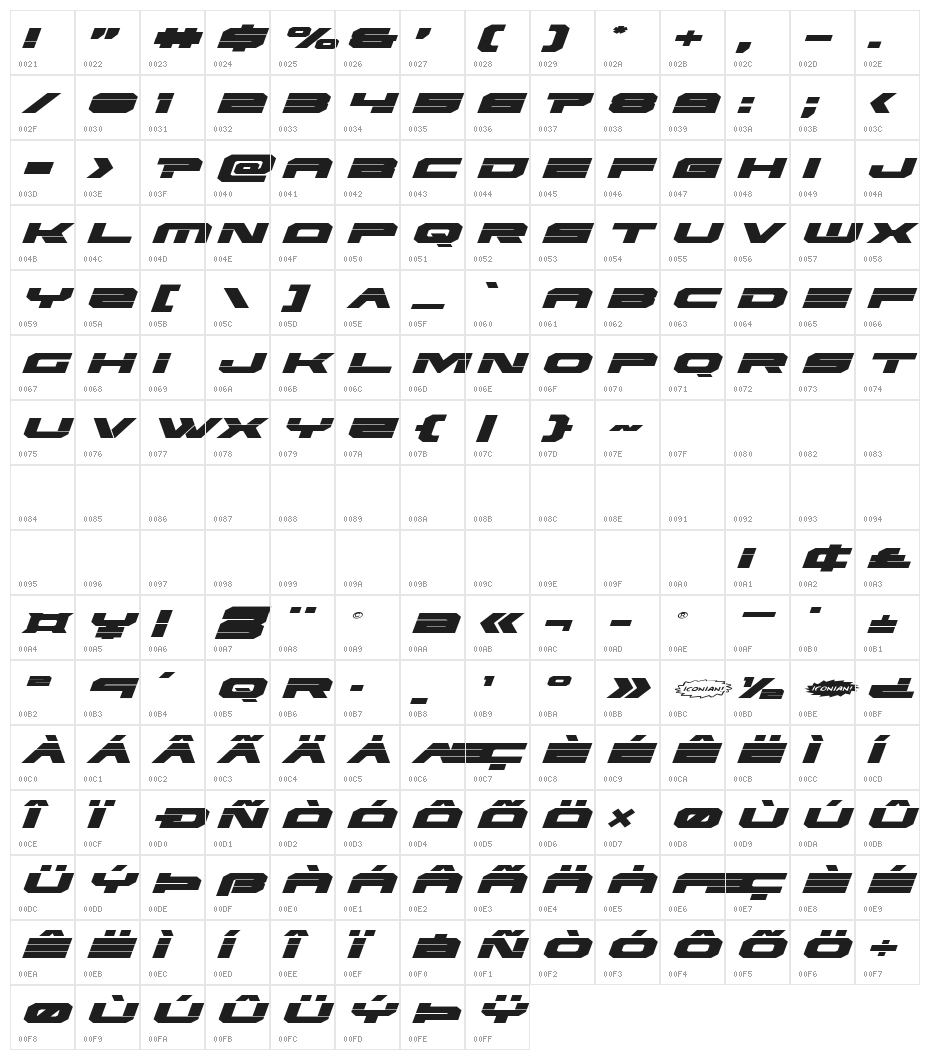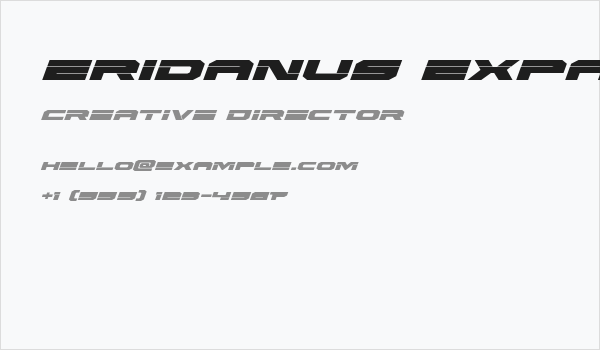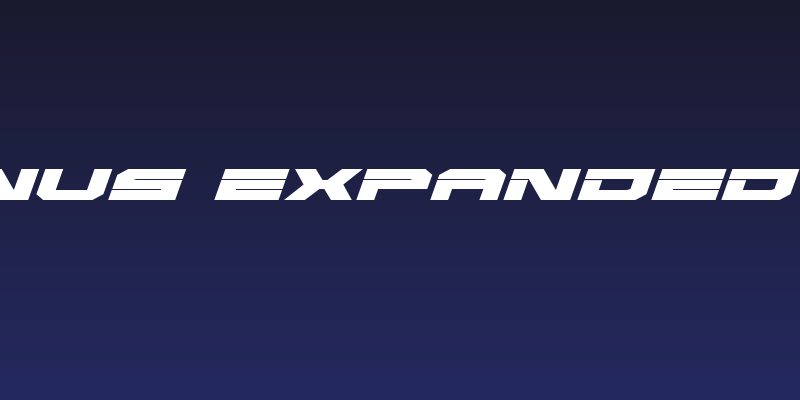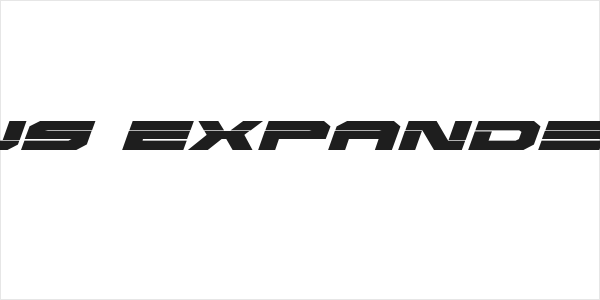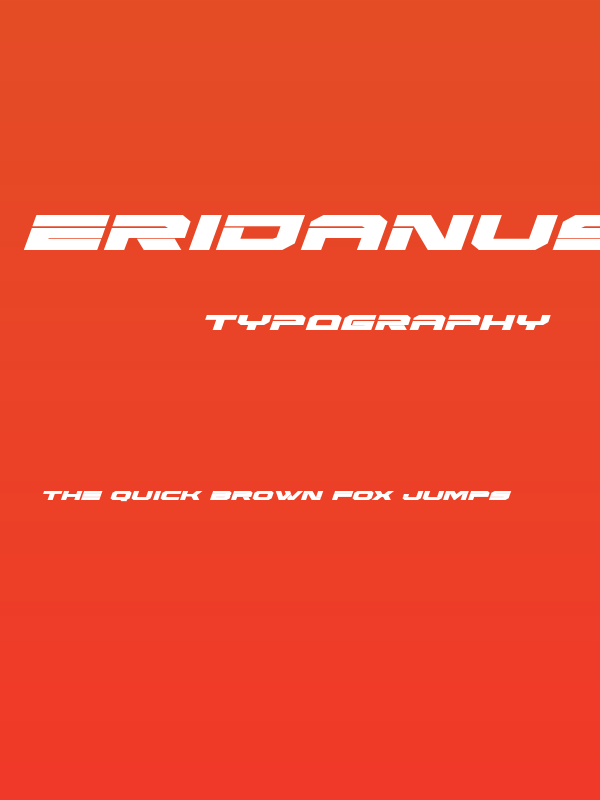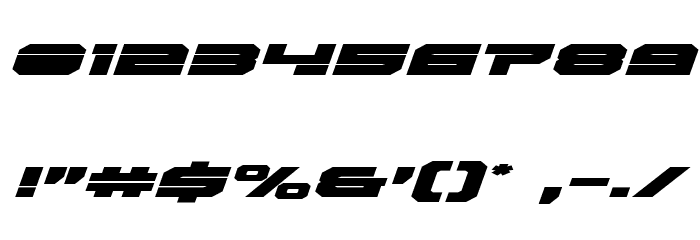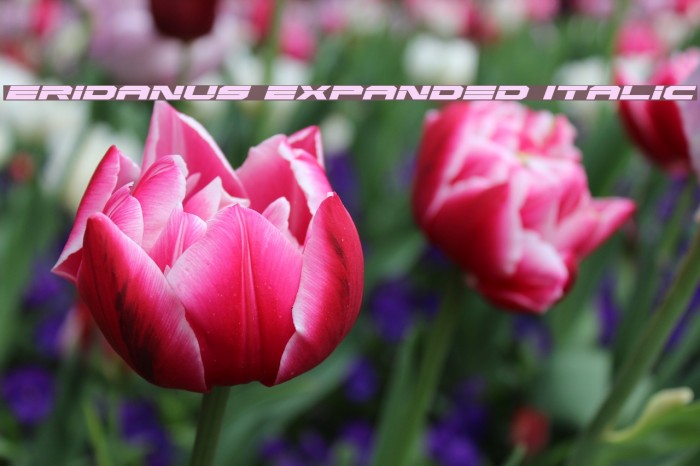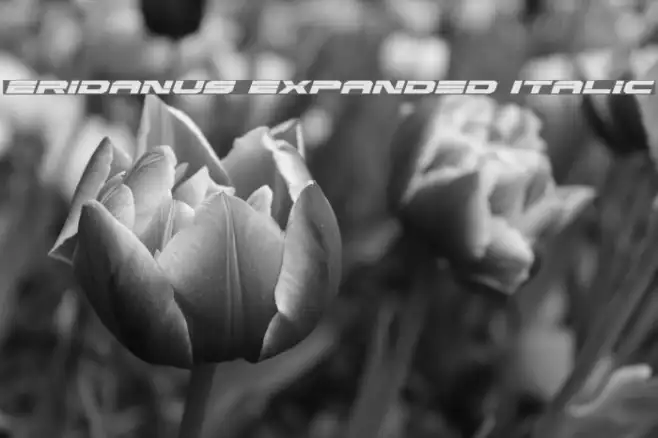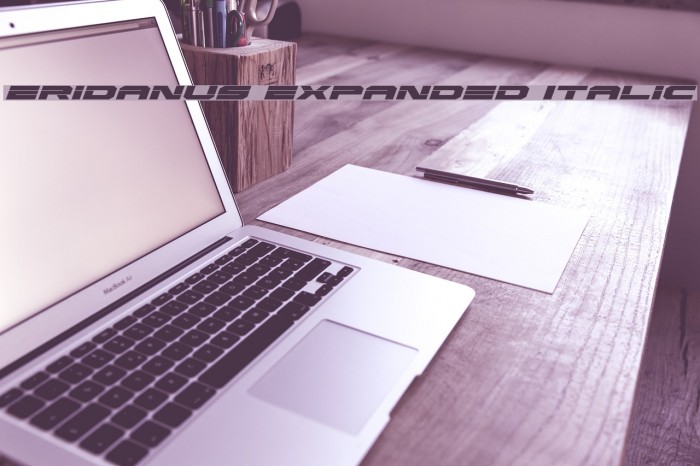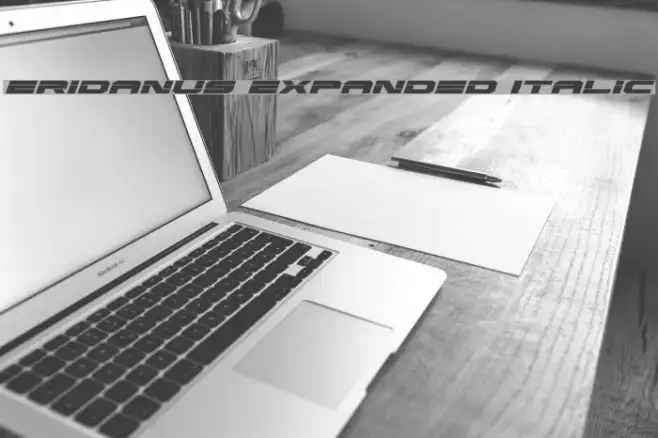
Eridanus Expanded Italic Font
Eridanus Expanded Italic Description
This font features a bold and futuristic design with an expanded and italicized style. The characters are wide and angular, giving a sense of speed and modernity. The uppercase letters are particularly striking, with sharp edges and a dynamic slant that suggests movement. The numbers and special characters maintain this aesthetic, ensuring consistency across all glyphs. The overall appearance is sleek and contemporary, making it suitable for projects that require a strong, impactful visual presence.
| Proposed Projects | Ideal for technology branding, sci-fi movie posters, video game titles, and sports team logos. |